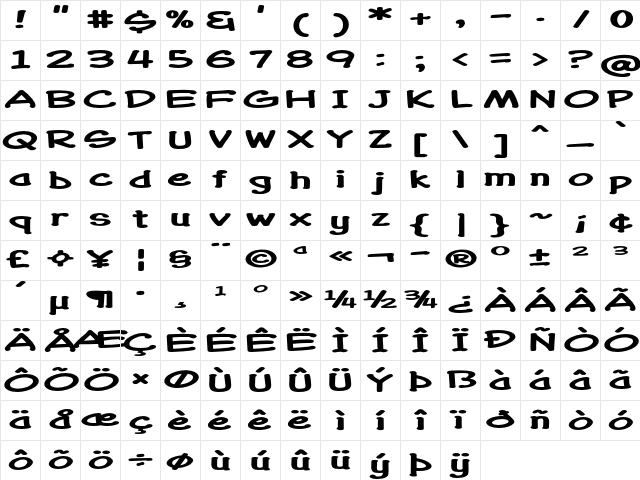
Complete Monster Marker Extra-expanded Bold glyph index. Displaying only characters natively supported by Monster Marker Extra-expanded Bold font.
Monster Marker is a composed and adaptable typeface that performs quietly and consistently across a wide range of design contexts. Its bold stroke weight gives it real presence on the page.